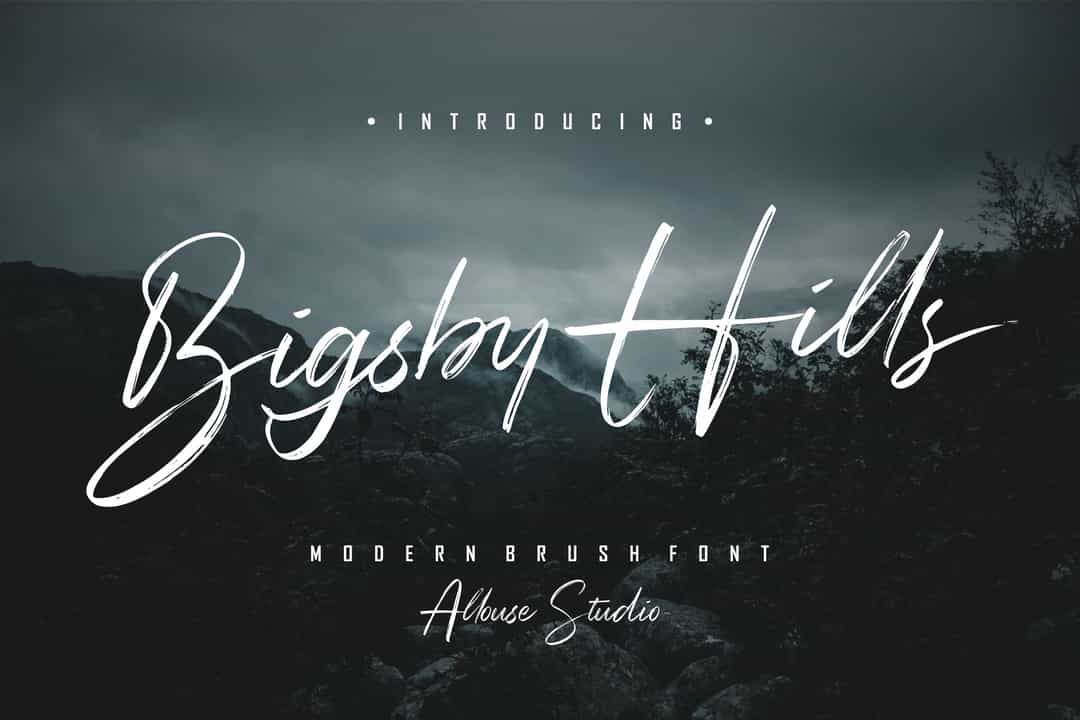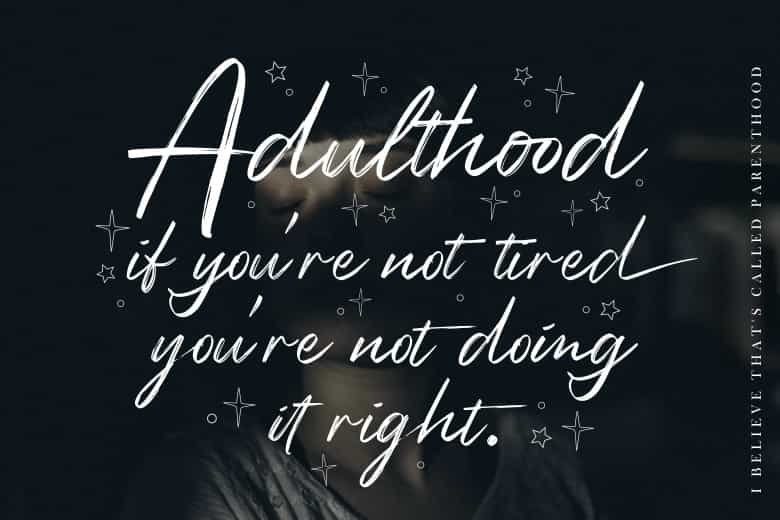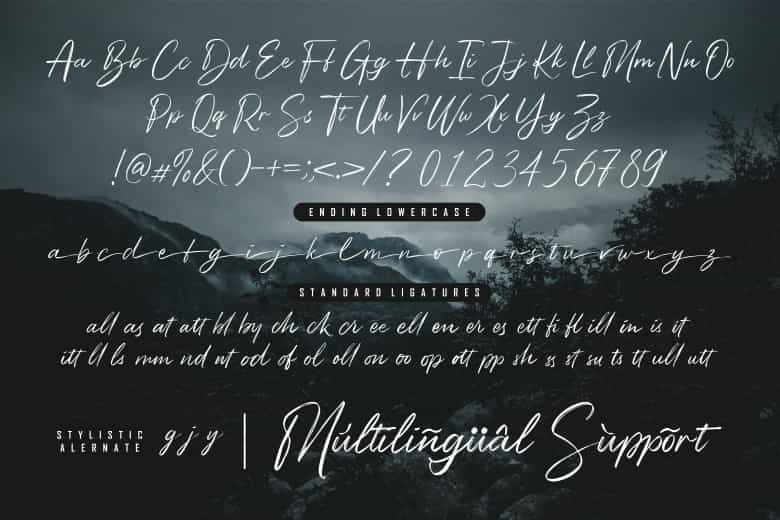
Bigsby Hills is a modern brush font. Perfect for packaging products, branding projects magazine weddings social media or simply conveying phrases over backgrounds; Bigsby Hills can stand alone or combine well with other fonts to form beautiful compositions.